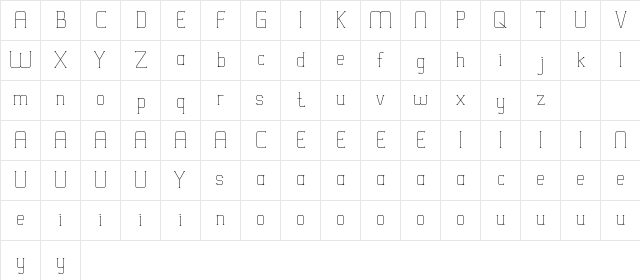
VICTORISA DEMO Light Regular
| Foundry | Edric Studio |
| Designer | Deyan |
Design Context for VICTORISA DEMO Light Typeface
VICTORISA DEMO Light is a composed and adaptable typeface that performs quietly and consistently across a wide range of design contexts. The delicate stroke weight brings airiness and refinement to layouts.